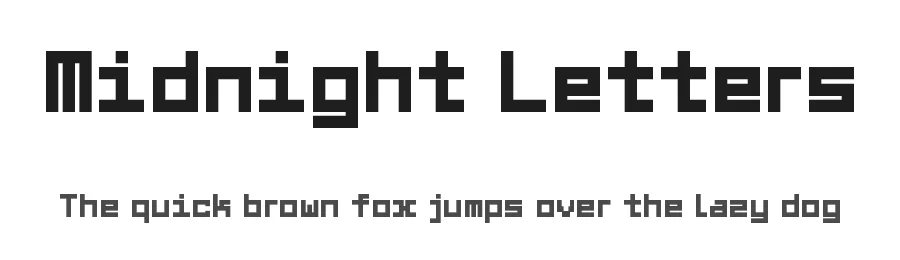
About Power Pack Font
Power Pack is a display font designed by Gabriel Drozdov. It includes 112 glyphs, a regular weight, TTF (TrueType) format, and 107 languages. Power Pack is free to download; check the license details on this page before commercial use. Display fonts like Power Pack work best for logos, posters, headlines, and eye-catching social media graphics.
Power Pack is a variable font.
- Variable font ยท axes: CHRG, POWR
Power Pack Font is a display font that shines as a display or heading face. Pair it with a clean sans-serif or serif font for body text โ the contrast creates a clear hierarchy while the two styles stay balanced and easy to read.
Power Pack Font
Power Pack Font is a display typeface by Gabriel Drozdov, ideal for logos, invitations, branding, and creative projects.